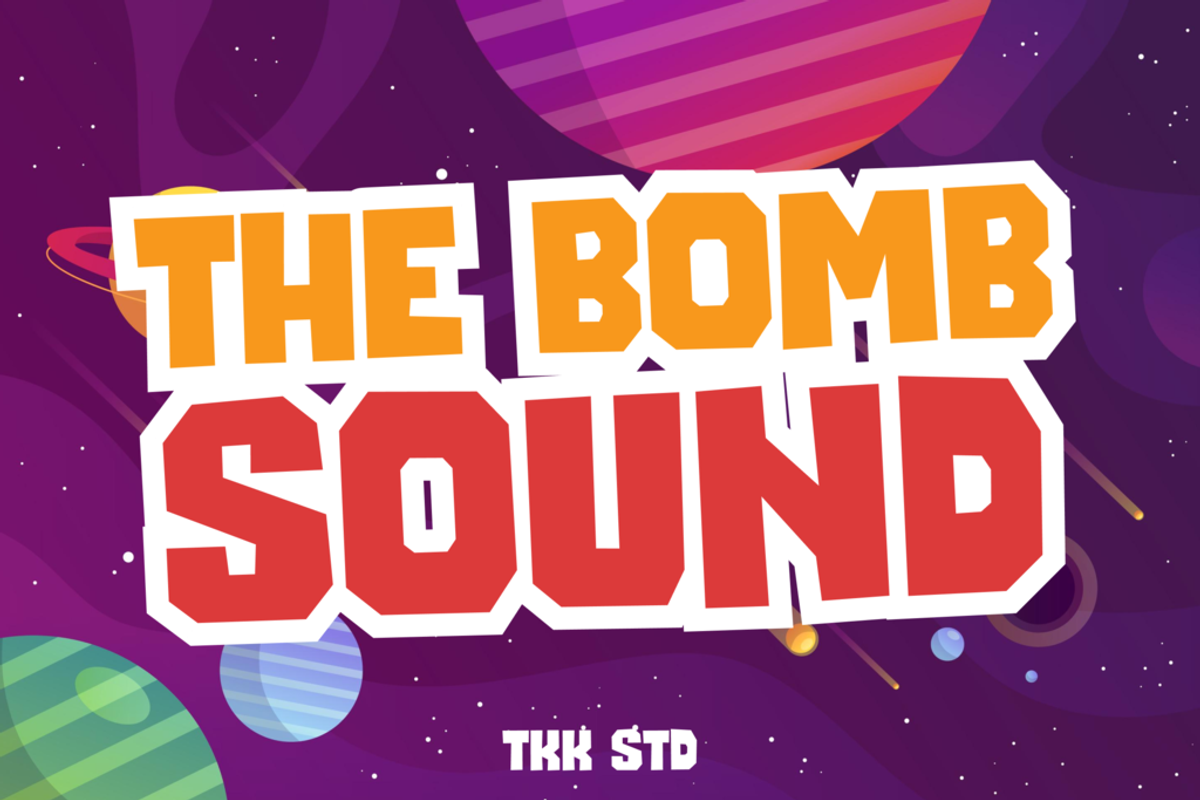
The Bomb Sound - Modern Font Free Download
The Bomb Sound - Modern Font Free Download is a bold and dynamic typeface designed to make a statement. With its sharp angles, clean lines, and contemporary aesthetic, this font is perfect for projects that need a powerful visual impact. Ideal for logos, posters, album covers, branding, and high-energy designs, The Bomb Sound brings a fresh and exciting feel to any creative project.
Whether you're working on a music-related design, a modern branding campaign, or any high-impact project, The Bomb Sound will add energy and personality to your typography.